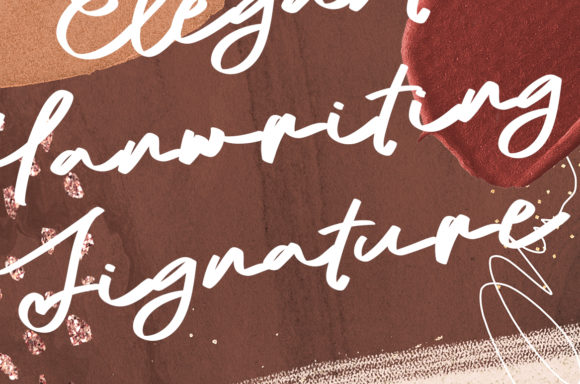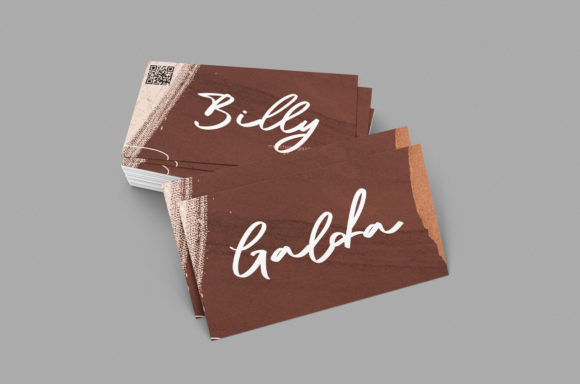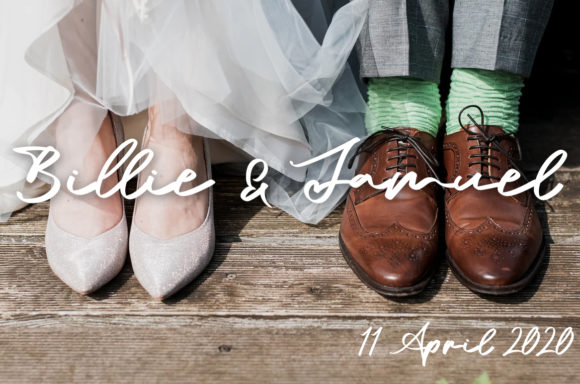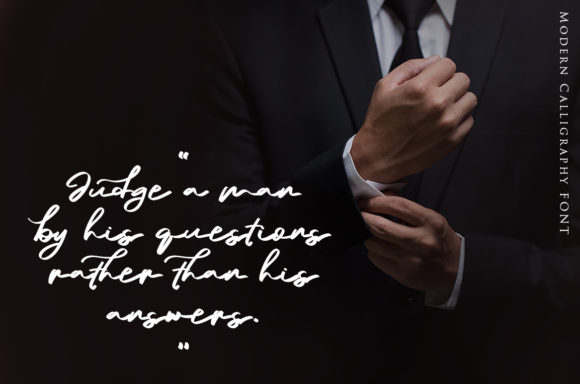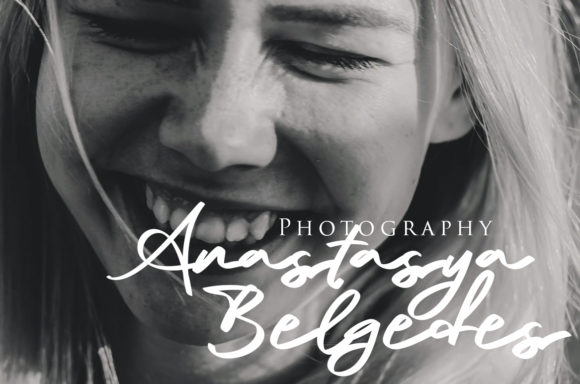
South Portland Font
About South Portland Font
South Portland is a signature font with beautiful curves and alternate characters. It will look outstanding in any context, whether it’s being used on busy backgrounds or as a standalone headline!